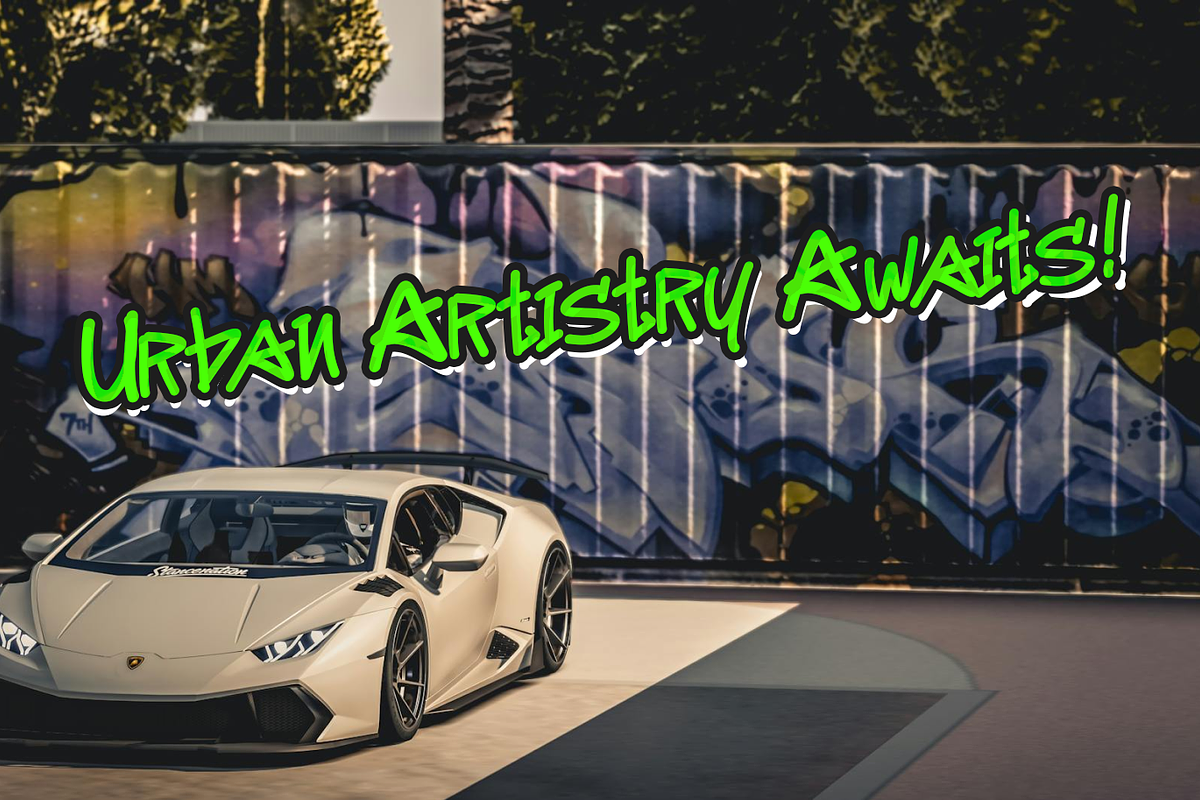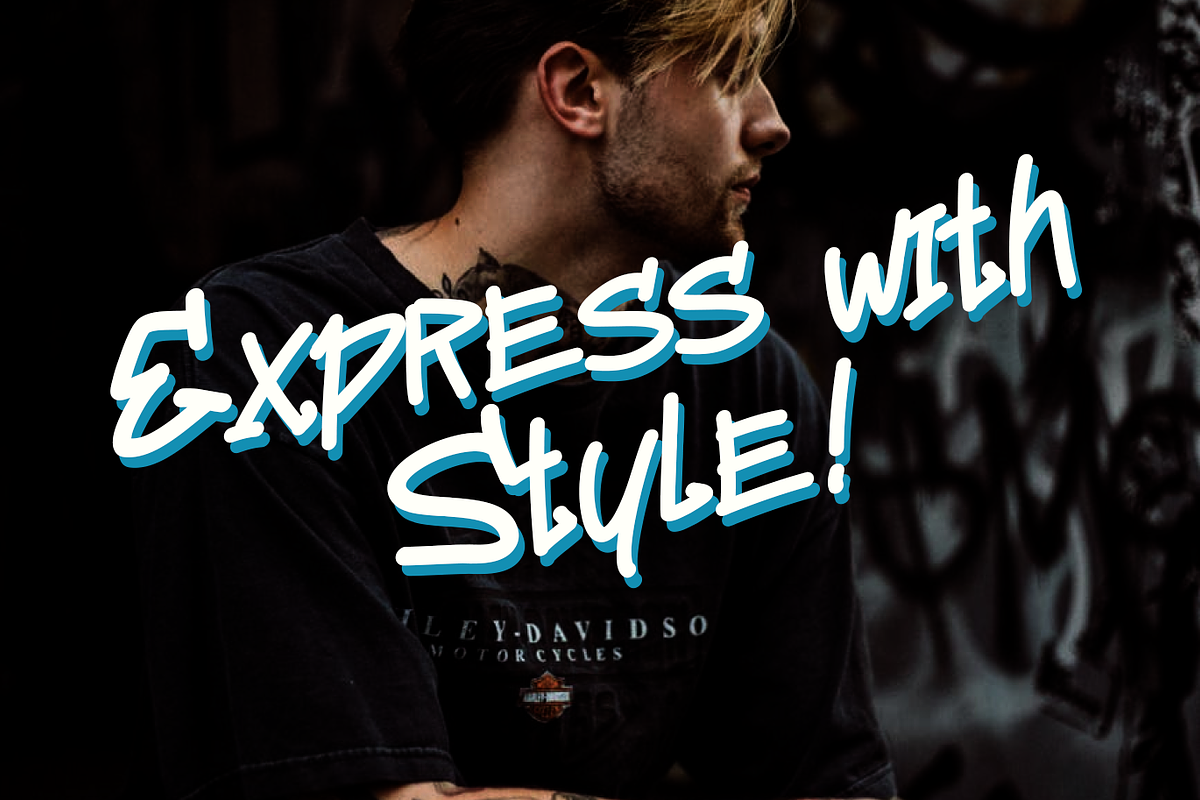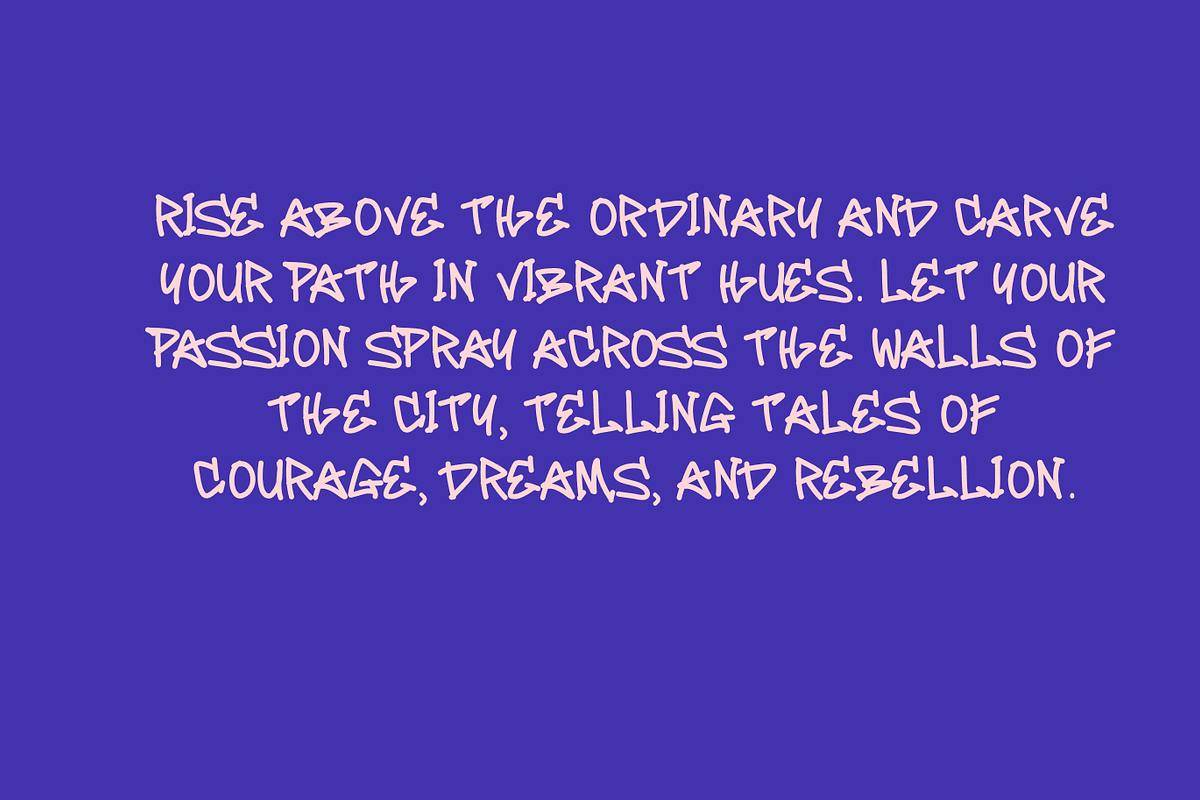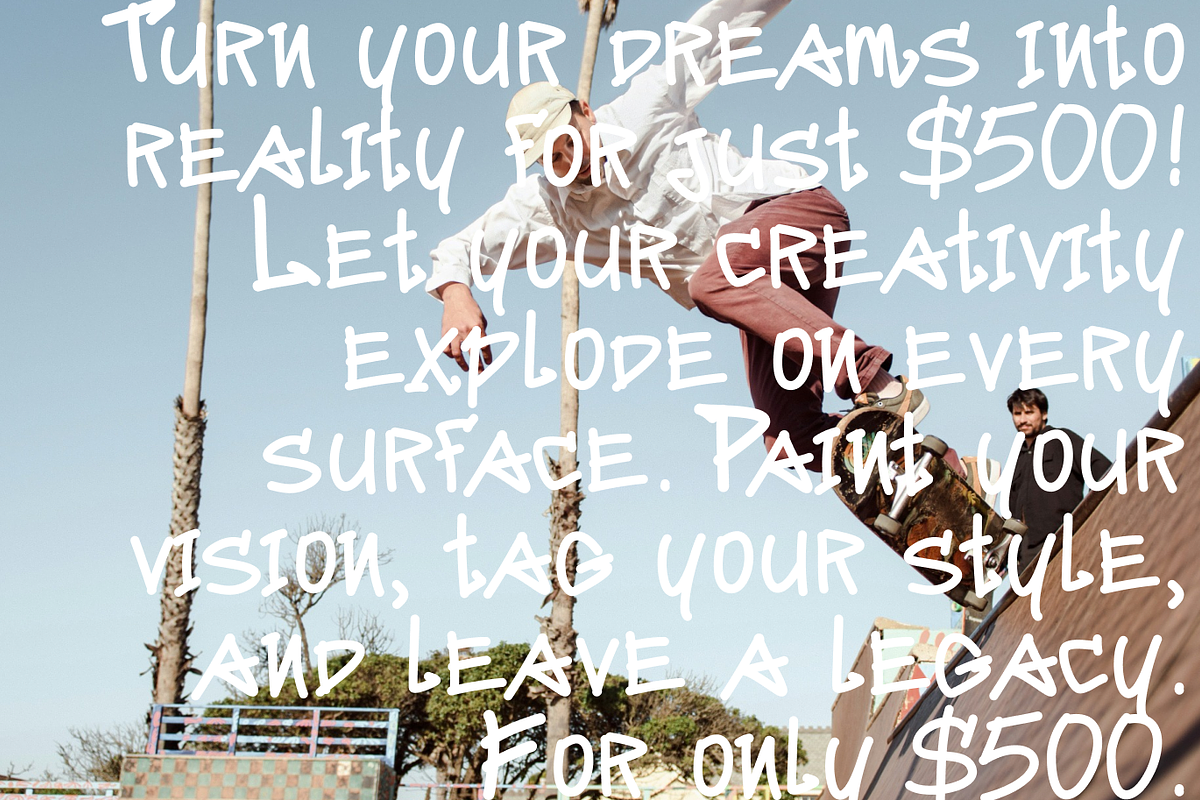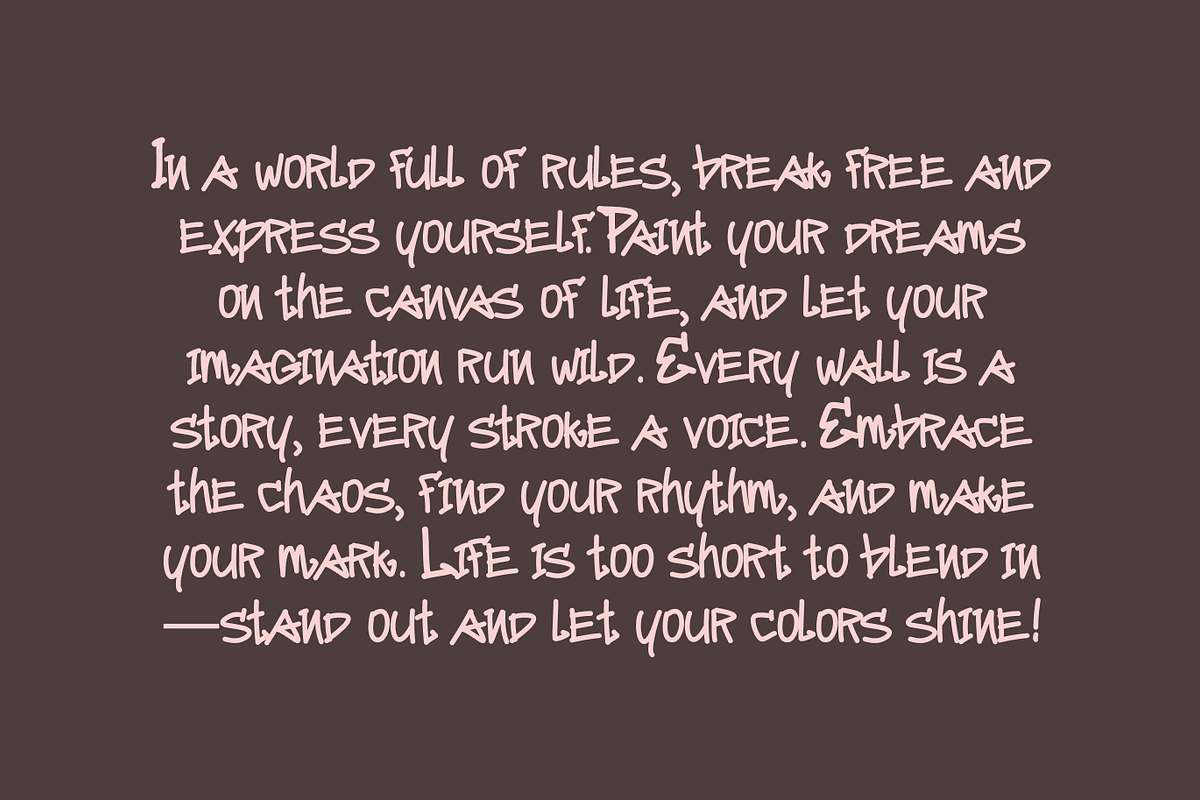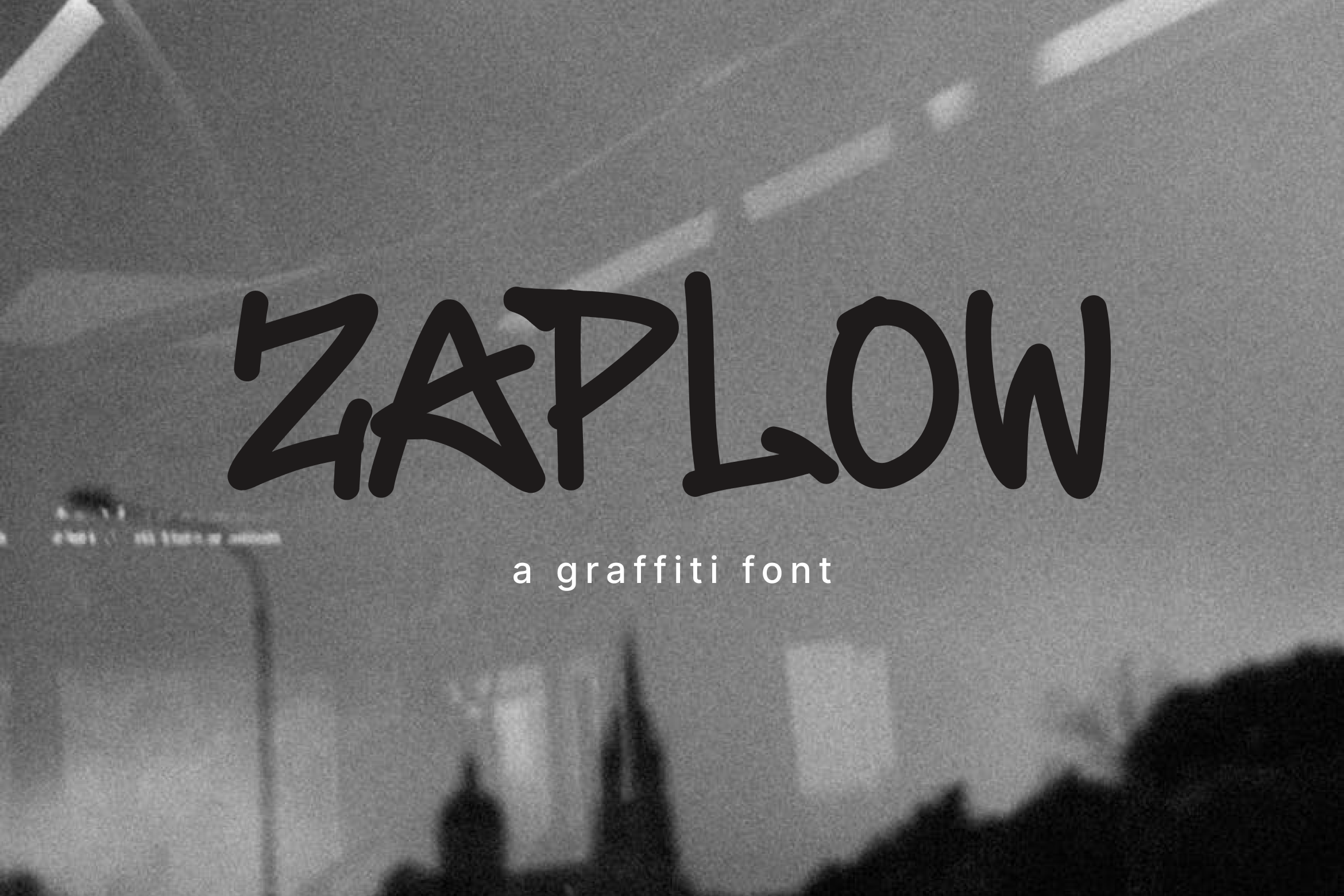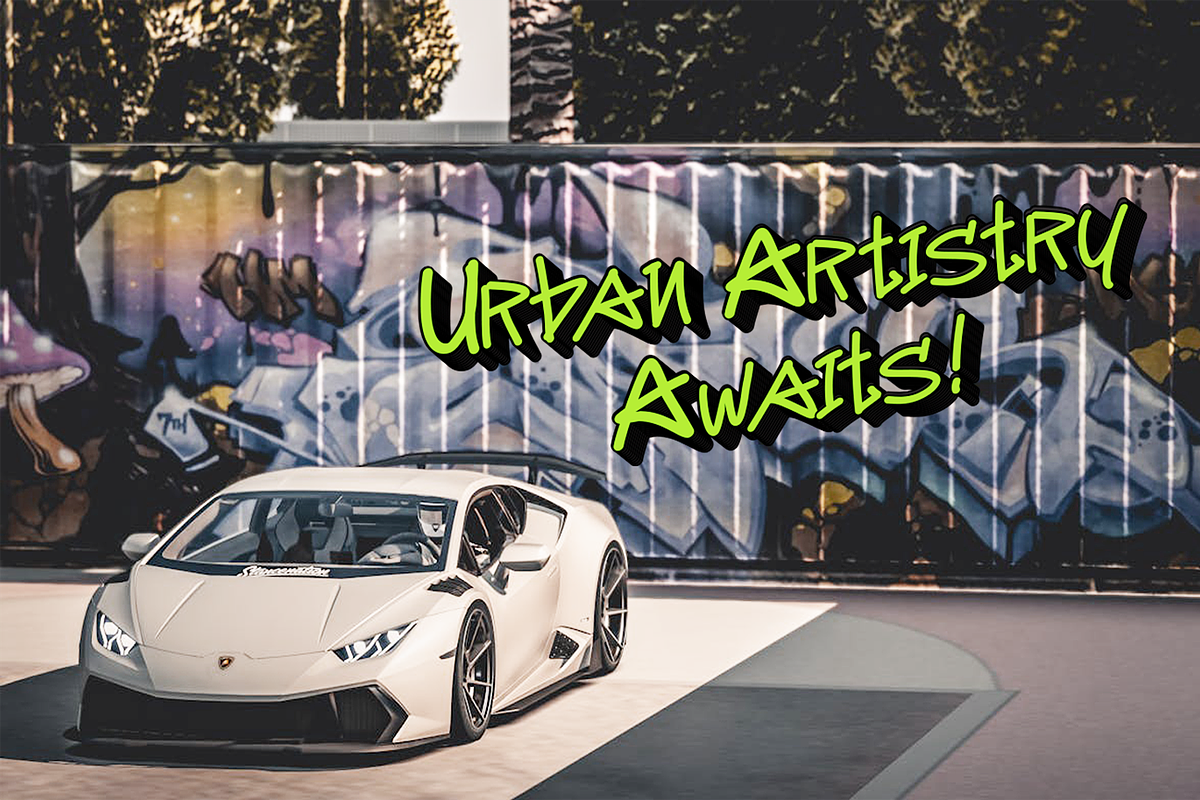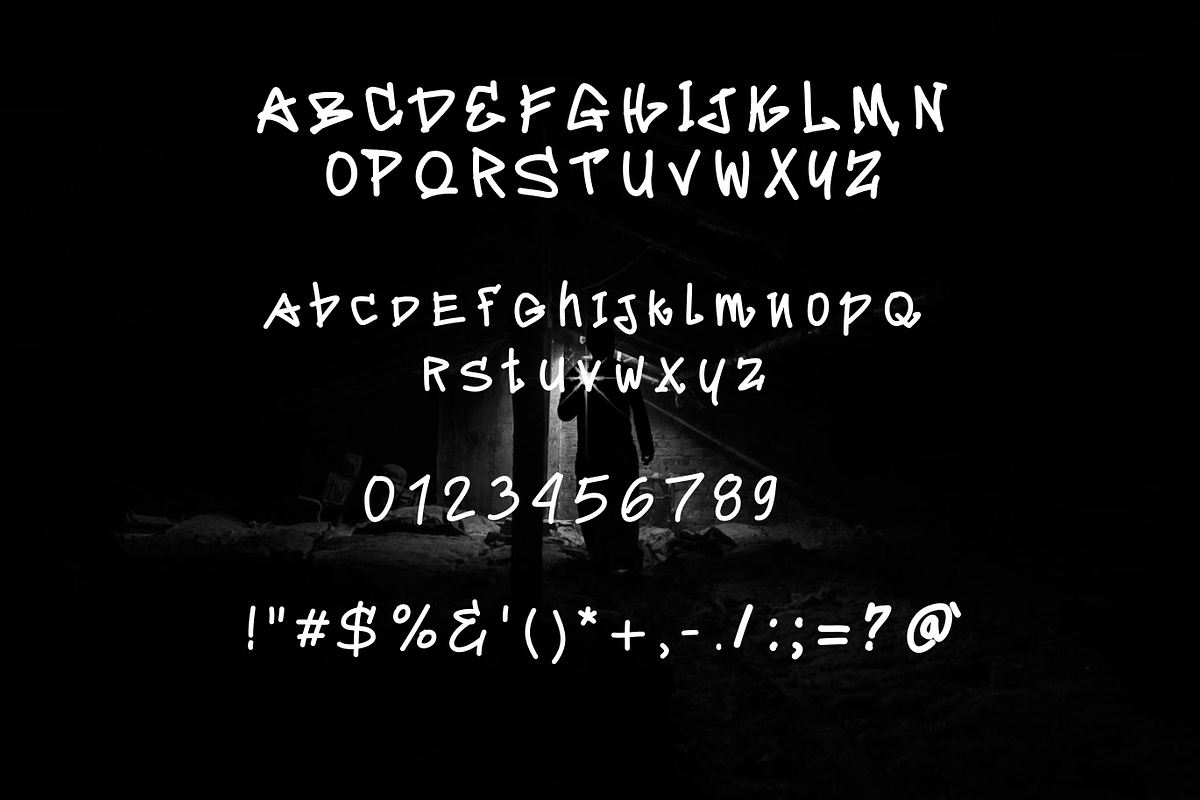
Zaplow Graffiti Hand-Drawn Font
Bring an urban edge and dynamic flair to your designs with Zaplow, the ultimate graffiti hand-drawn font. Perfect for street art enthusiasts, designers, and creatives, Zaplow captures the essence of raw, authentic graffiti with every stroke.
With Zaplow, you're not just buying a font; you're investing in a tool that empowers you to express your creativity without limits. Whether you're aiming for a gritty, rebellious look or a playful, artistic vibe, Zaplow adapts to your vision.
Transform your designs with the vibrant energy of street art. Add Zaplow to your collection today and watch your creativity soar!